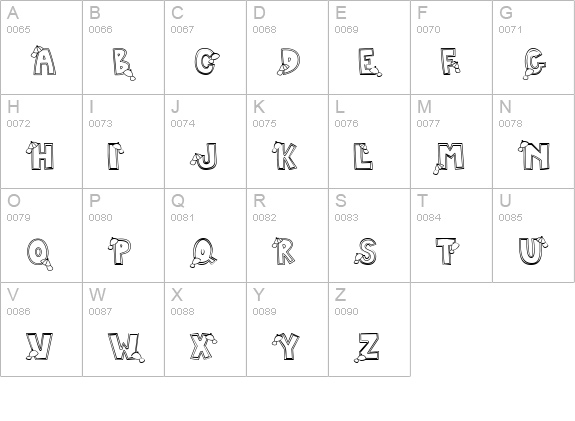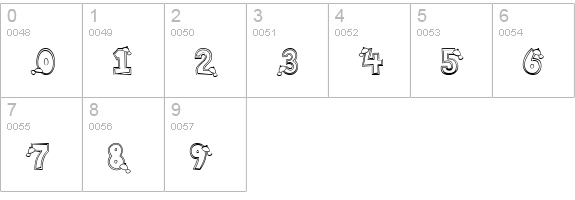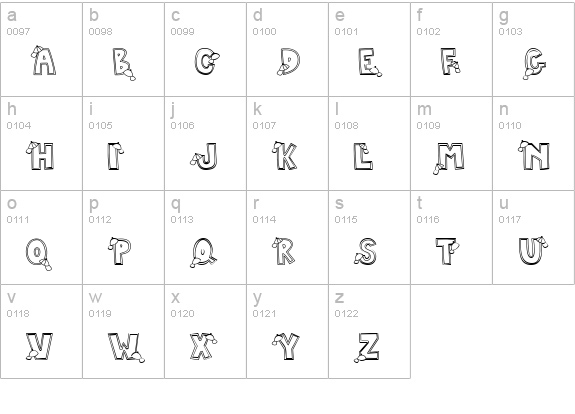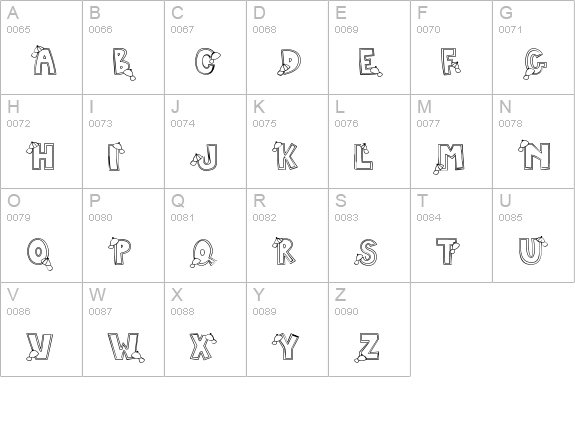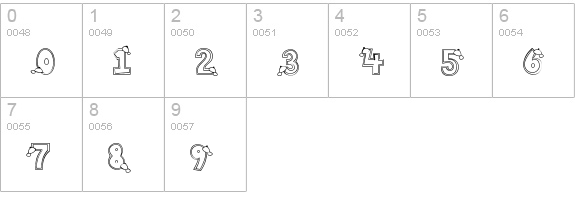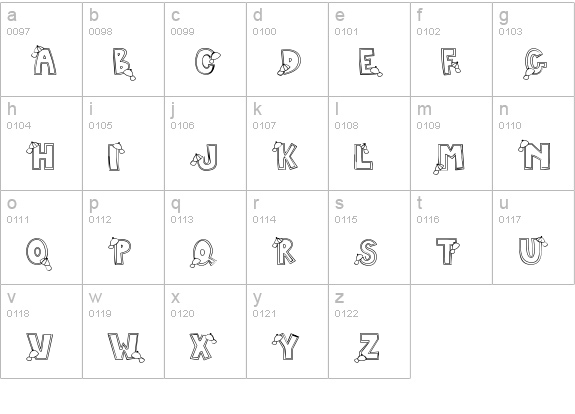
CK Play Ball Font Details
Introducing CK Play Ball font, a playful and dynamic typeface perfect for adding a fun and energetic touch to your designs. This font features bold and whimsical letterforms that are sure to make a statement. Whether you're creating posters, logos, or invitations, CK Play Ball is the perfect choice to bring a sense of joy and creativity to your projects. The best part? CK Play Ball font is available for free download at FontsMarket.com. So go ahead and unleash your creativity with this delightful font that is sure to make your designs pop!